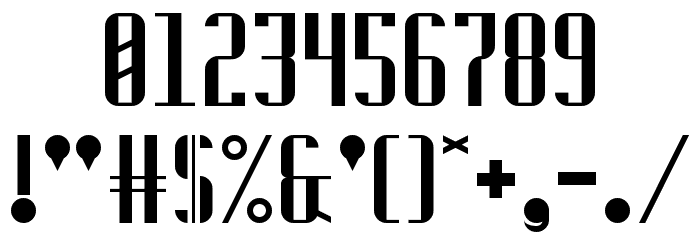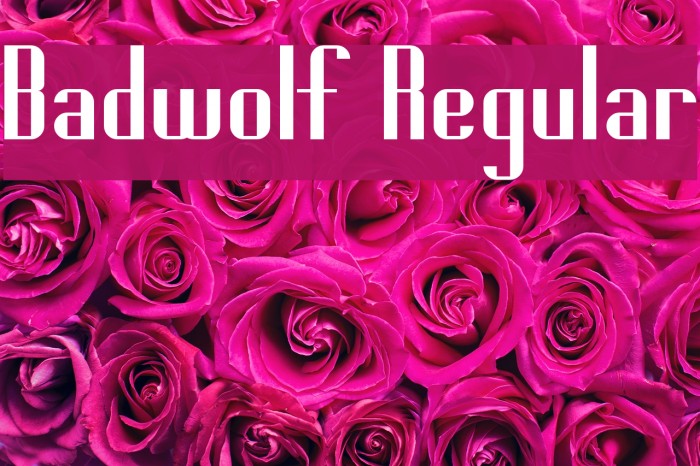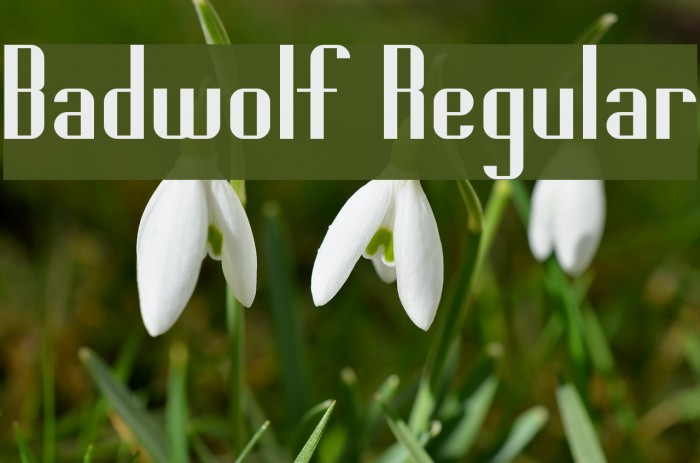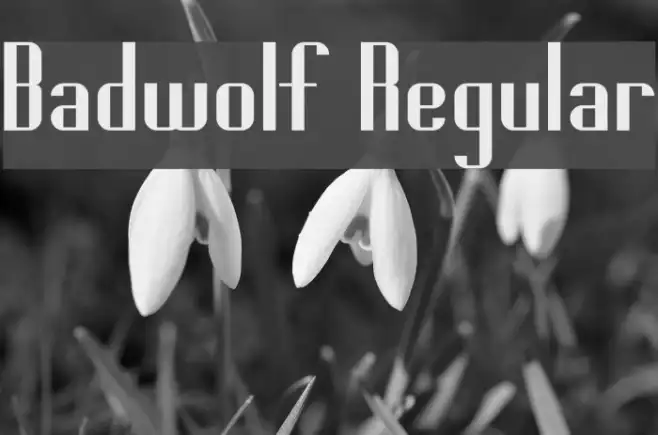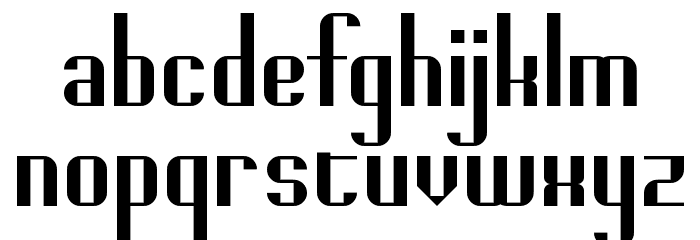
Badwolf Regular Font
This font features a bold and striking design with a modern, geometric aesthetic. The characters are tall and narrow, with sharp angles and clean lines, creating a sense of strength and precision. The uppercase letters are particularly distinctive, with unique shapes that give the font a futuristic feel. The lowercase letters maintain the same geometric style, ensuring consistency across the typeface. Numbers and special characters are designed to match the overall style, making this font versatile for various uses. The high contrast between thick and thin strokes adds to its dynamic appearance.
A bold, geometric font with a modern and futuristic aesthetic.
• Proposed Projects: Ideal for branding, posters, headlines, and any project that requires a strong, modern look.
• Category: Decorative/Display
• Bold: Yes
• Italic: No
• Weight: Bold
• Width: Condensed
• Character Spacing: Normal
• Contrast: High
• Overall Style: Modern
• Use Case: Headlines, Logos, Posters